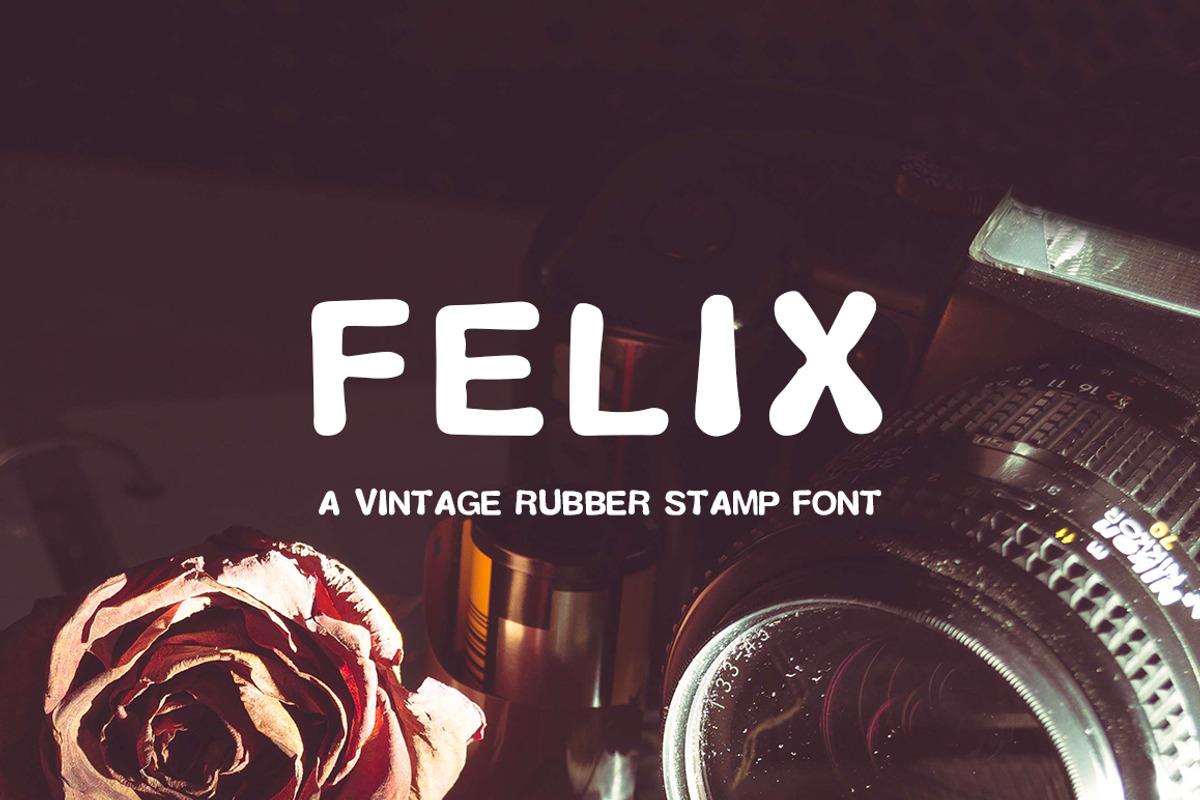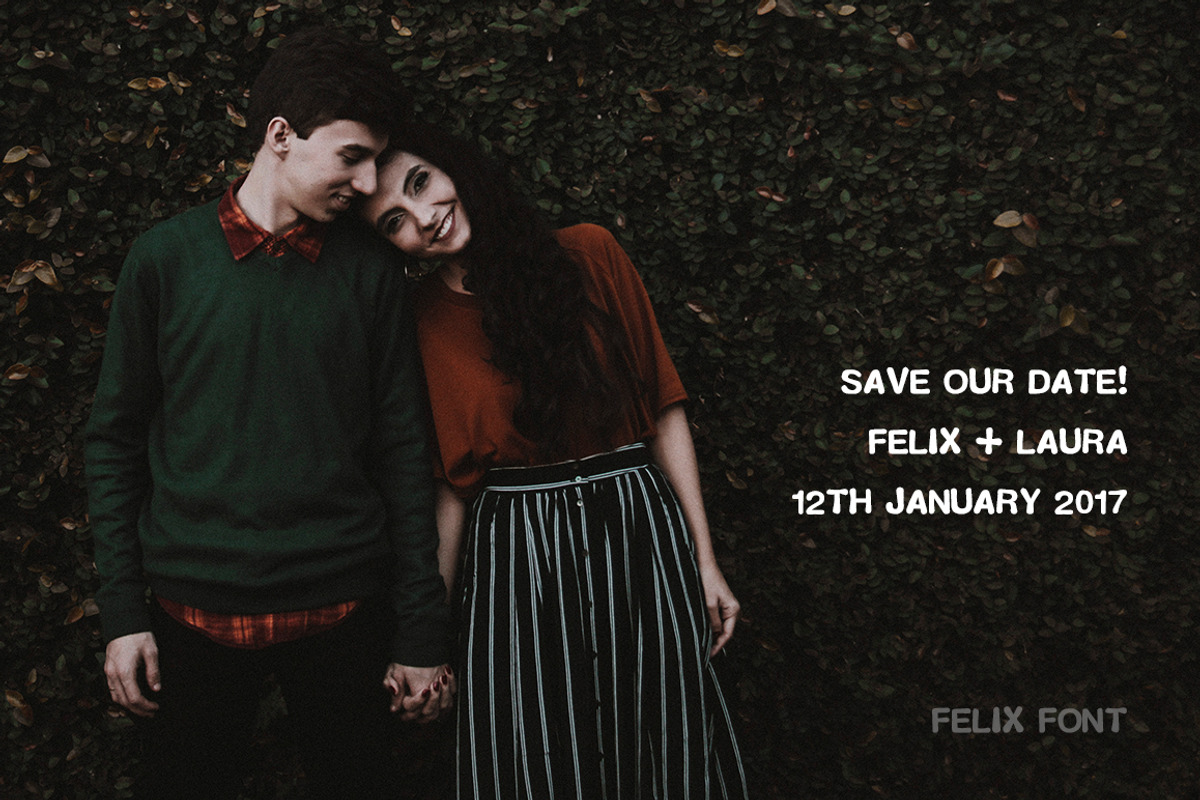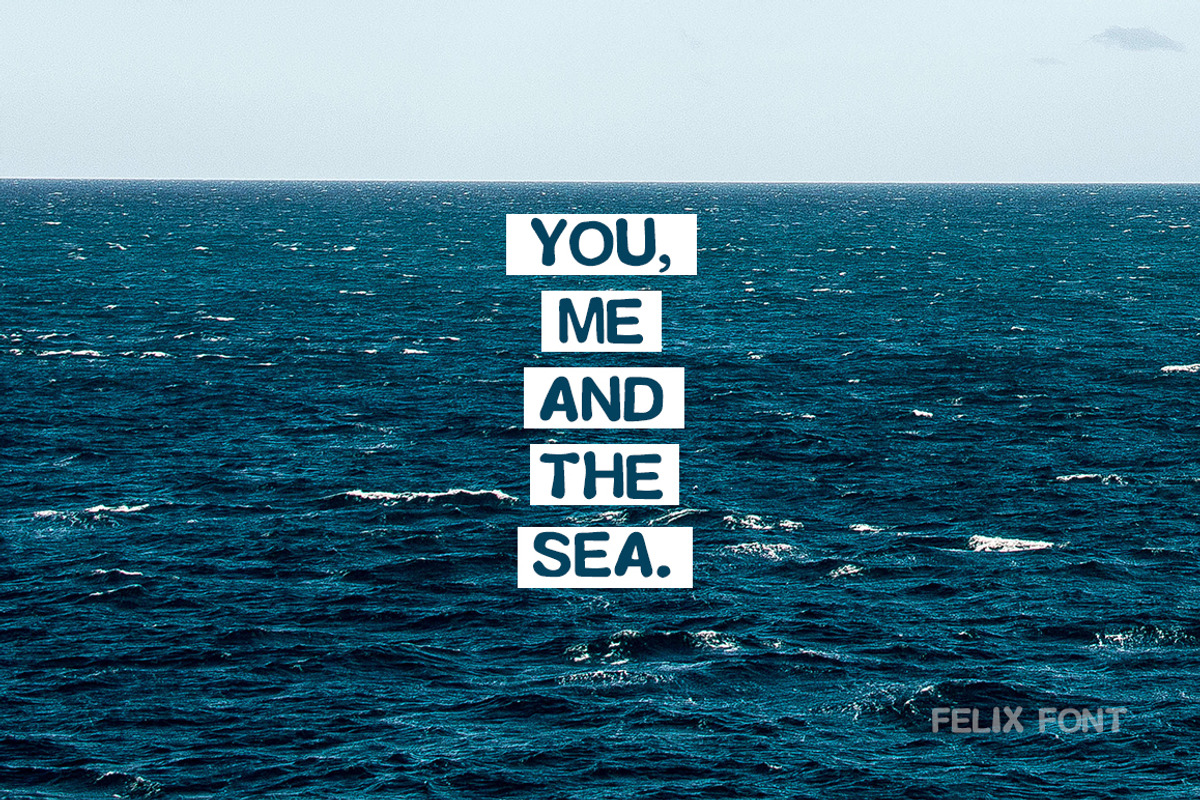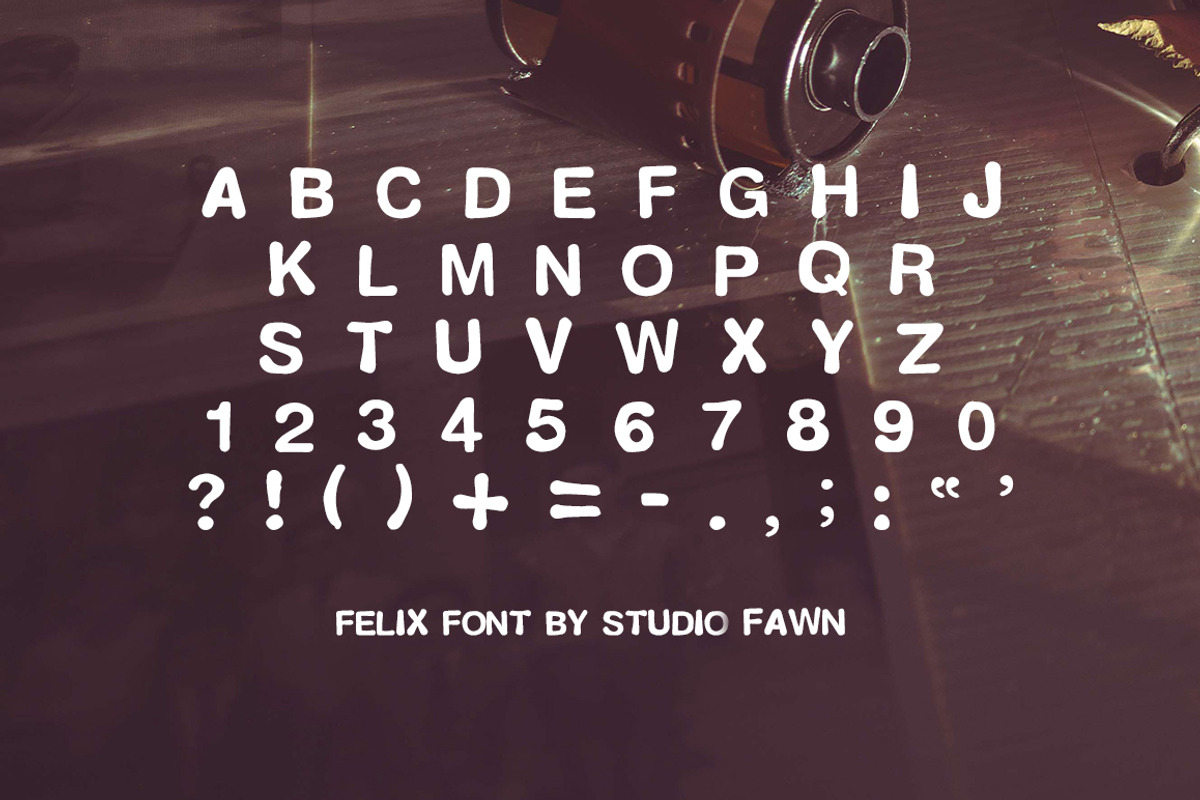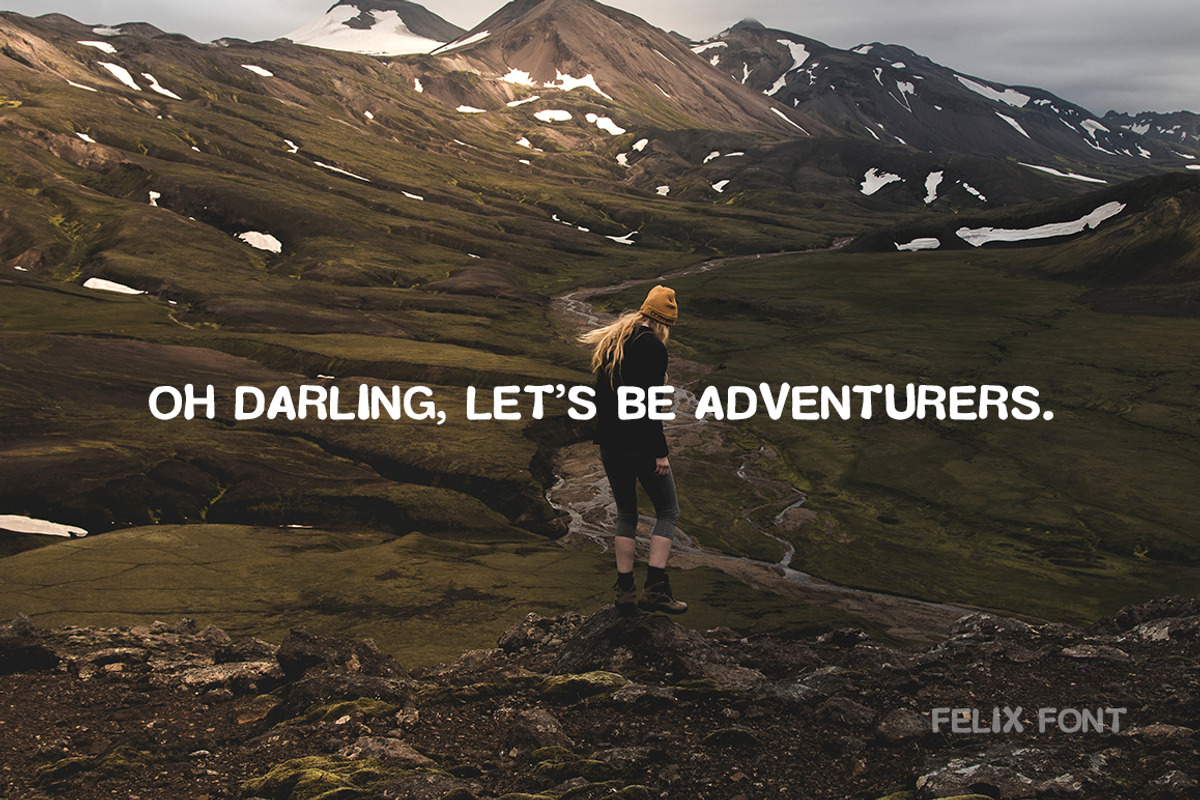
Felix Vintage Rubber Stamp Font
Felix Vintage Rubber Stamp Font by Studio Fawn is a font selected for branding, posters, packaging, typography.
- An uppercase font with numbers and a selection of punctuation, Felix is fun to use and cute to look at!
Why Felix Vintage Rubber Stamp Font is worth a look
Felix Vintage Rubber Stamp Font by Studio Fawn fits naturally into Branding, posters, packaging, typography.